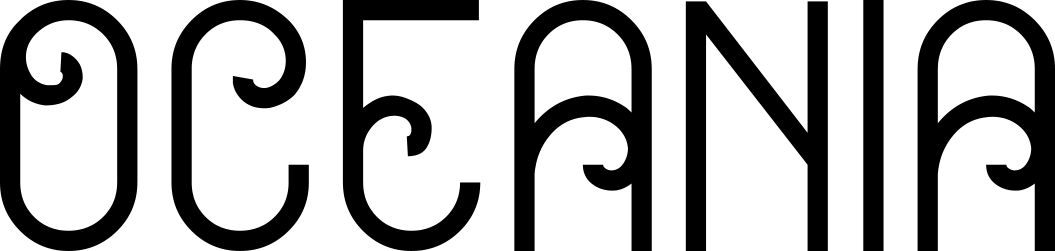
Oceania Font
Take a look around and see how many different types of fonts are used to show a special message. If you want to make a layout and you need a perfect typeface you may go with this retro font.
Oceania with wavy and thin letters reminds us of the calmness of the sea. Apply it to invitation cards, posters, flyers, and so on. Note that this one doesn’t support numbers.
Oceania is unique display font with wavy dancing ocean wave. Bringing beach tropical freshness to your design. Suitable for your design need like headline, poster title, book cover, neon text, logo type, tshirt and so on